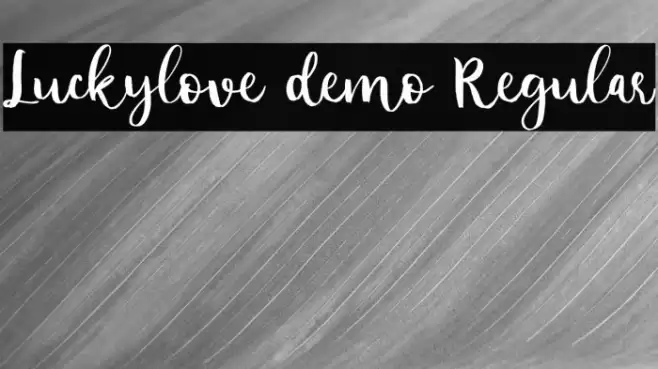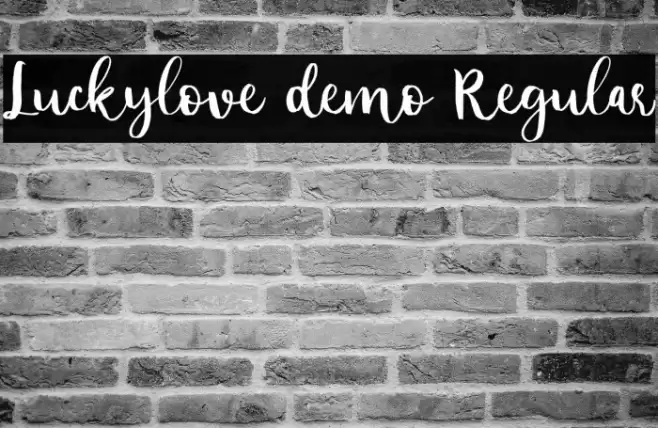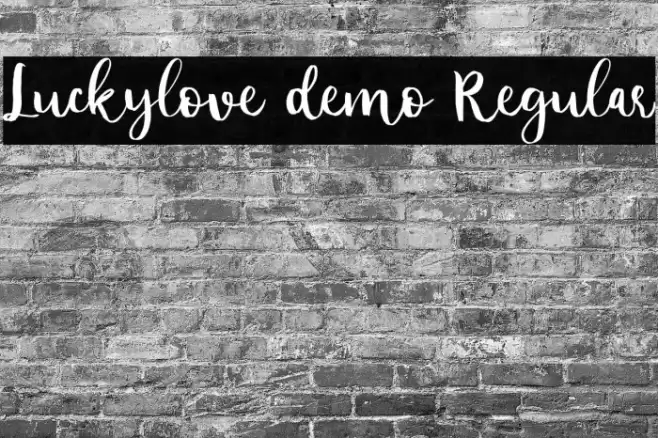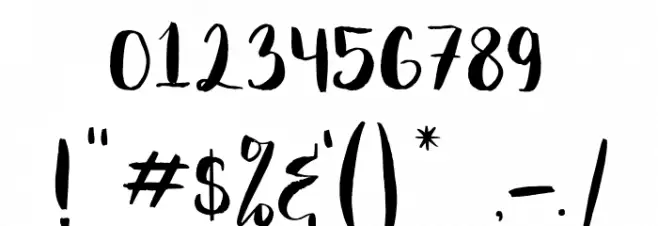
Luckylove demo Regular Font
Luckylove demo Regular Description
This font features a lively and expressive handwritten style, characterized by its flowing and cursive letterforms. The strokes are bold and dynamic, with varying thickness that adds a sense of movement and personality. The uppercase letters are slightly more structured, while the lowercase letters exhibit a playful and casual flair. The numbers and special characters maintain the same energetic style, making the font versatile for creative projects. Its overall appearance is both modern and artistic, suitable for designs that require a personal touch.
A lively and expressive handwritten font with bold, dynamic strokes from Regular fonts.